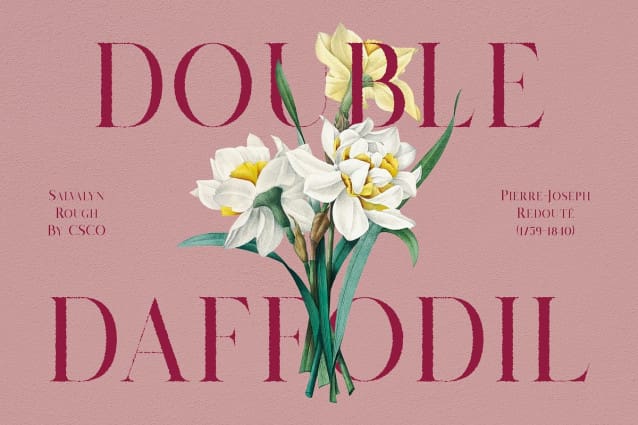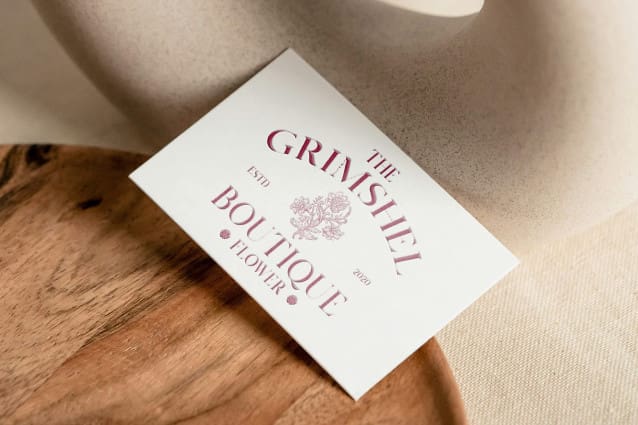
Salvalyn Rough Font
Salvalyn Rough Font is a modern serif font that expertly combines clean simplicity with a gritty, textured finish. Its minimalist letterforms offer a sleek and professional appearance, providing a refined, elegant look suitable for various contemporary designs. However, the addition of a rough effect introduces a raw, unique texture, giving the font depth and character beyond standard serifs.
Textured Grit for Added Depth and Bold Visual Impact The rough effect in Salvalyn Rough adds a distinctive, rugged quality to the font’s otherwise smooth lines, enhancing its visual interest and creating a striking balance between modern sophistication and creative edginess. This textured grit gives the font a bold visual impact, making it ideal for projects that seek to combine minimalism with a daring, standout aesthetic.
Perfect for Branding, Posters, and Packaging Salvalyn Rough’s combination of clean design and textured flair makes it versatile for a range of applications. Whether used in branding, posters, or product packaging, this font strikes a perfect balance between simplicity and creativity, ensuring your design stands out while maintaining a refined, polished appearance.